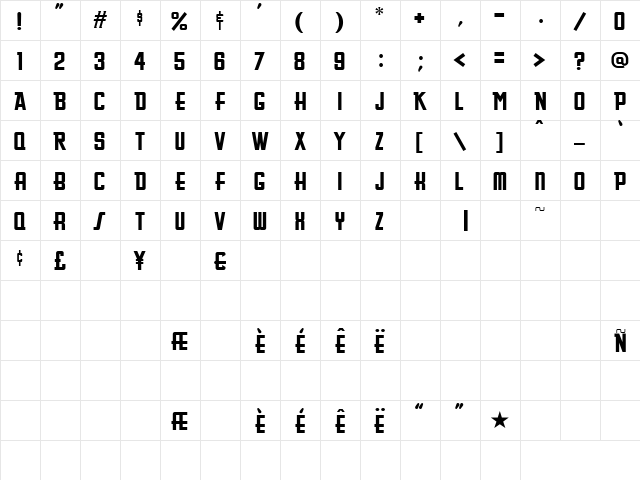
Greasy Spoon Menu Regular
Design Context for Greasy Spoon Menu Typeface
Greasy Spoon Menu takes a measured approach to typography — its balanced proportions and neutral character make it a reliable workhorse for both digital and print work.